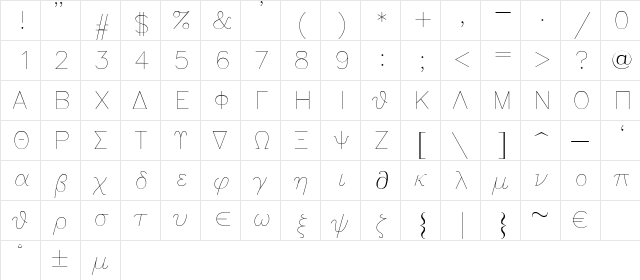
GreekS Regular
Design Context for GreekS Typeface
GreekS offers clean, dependable letterforms without strong stylistic allegiance, making it a practical choice for designers who need flexibility.